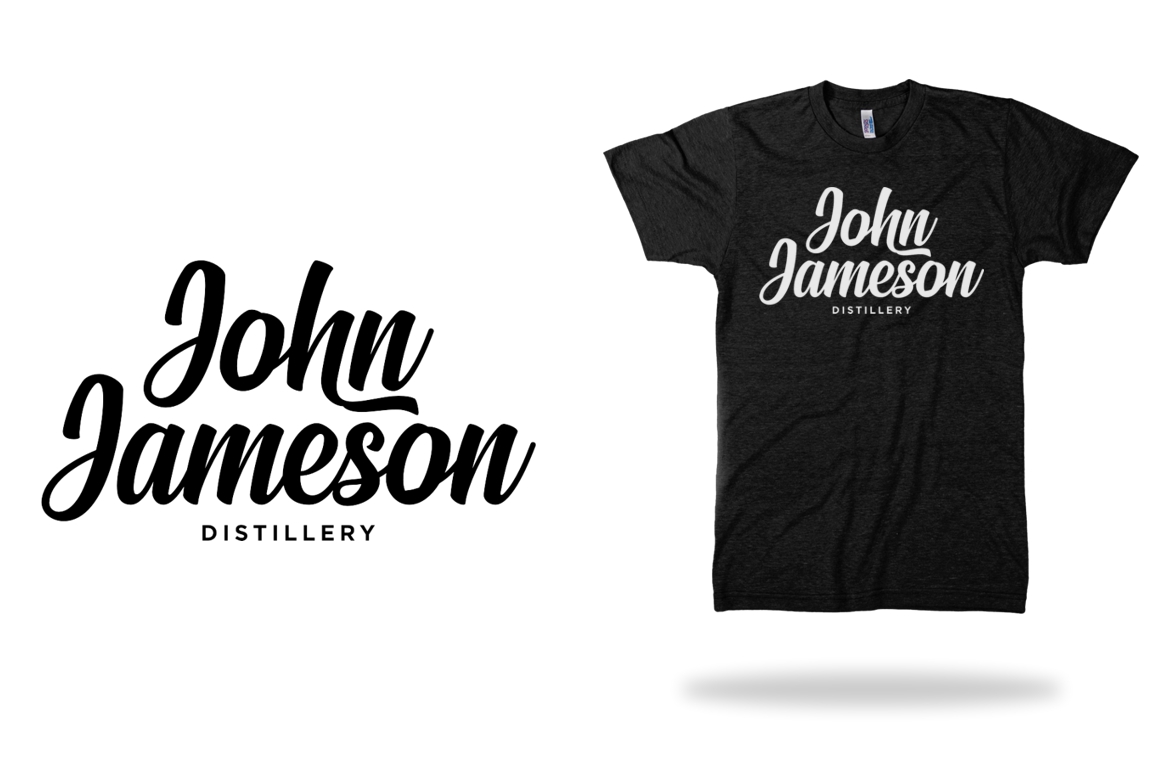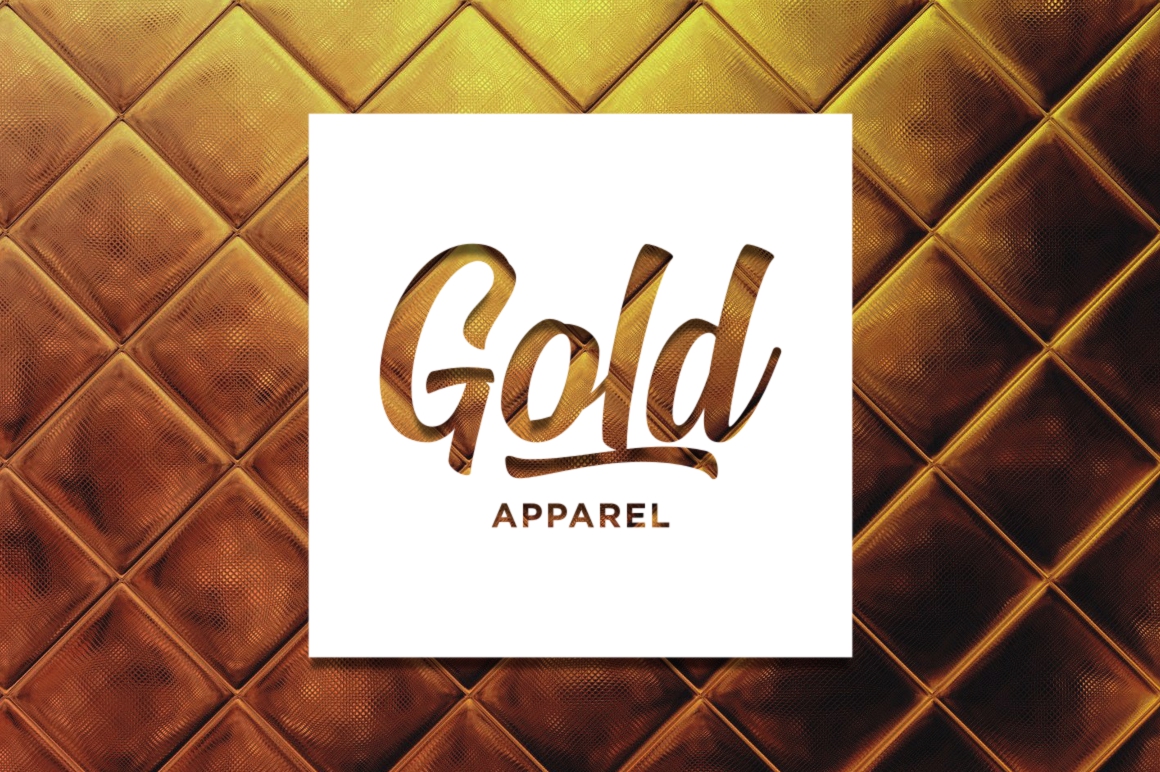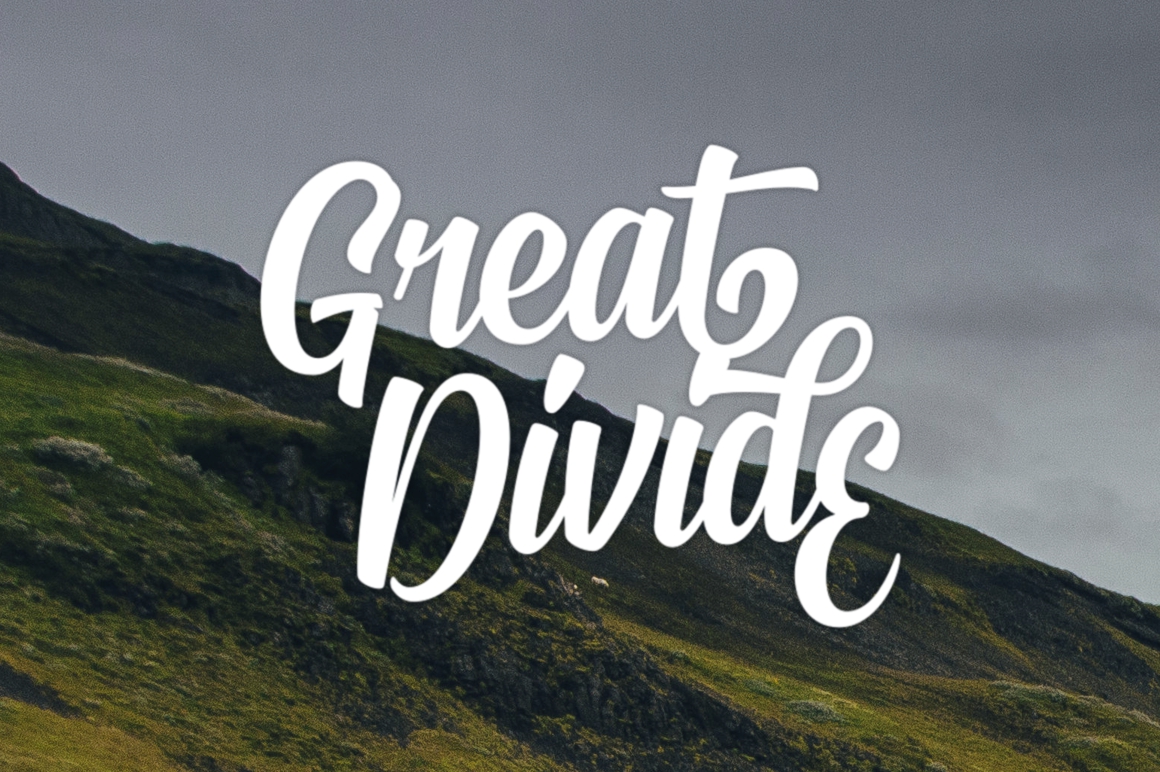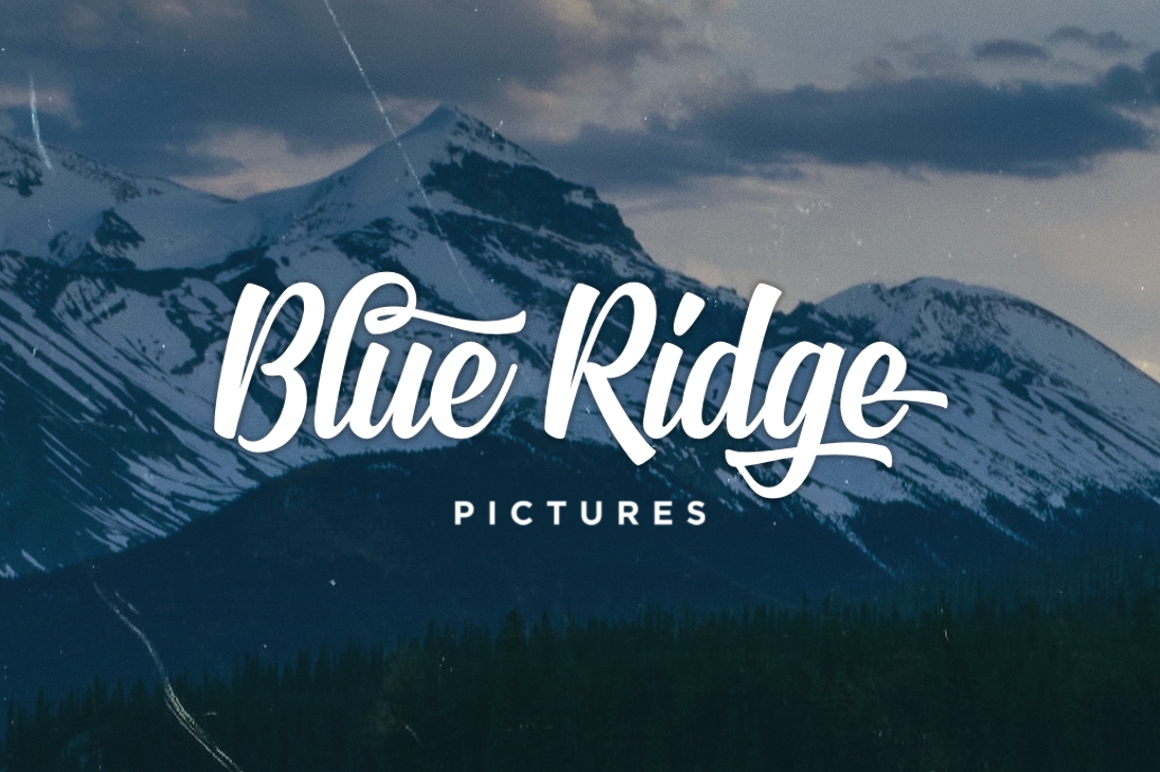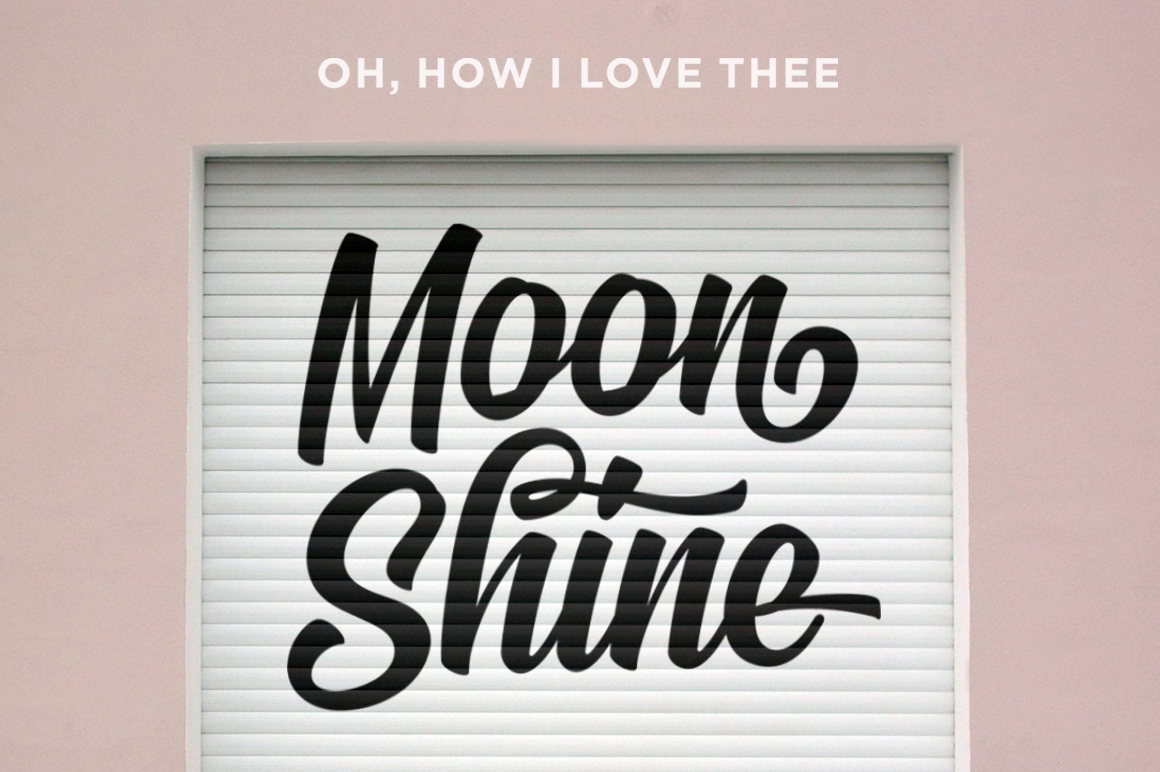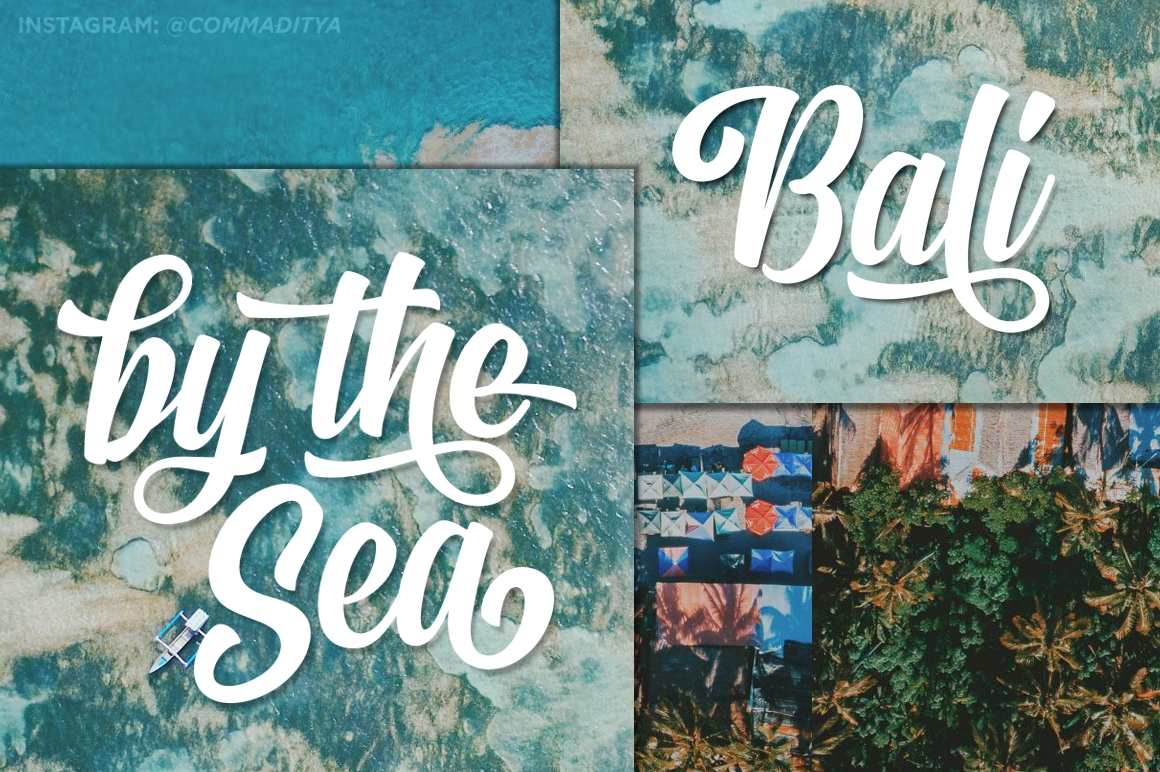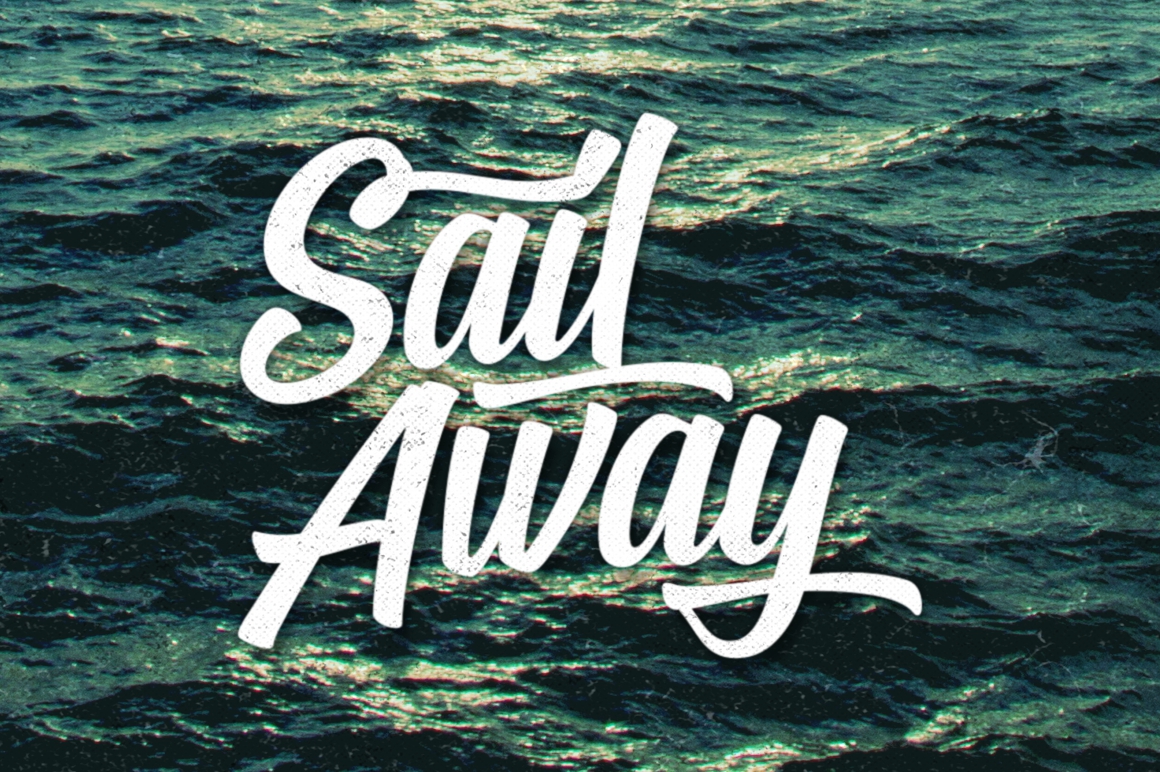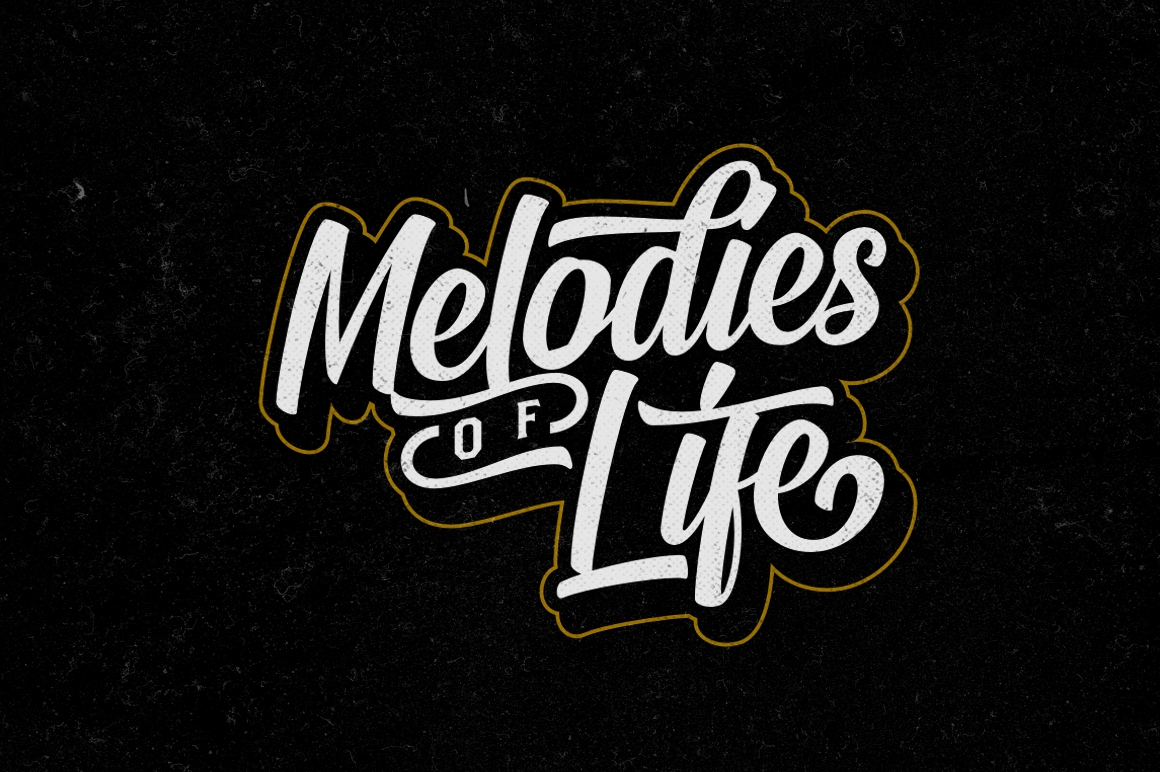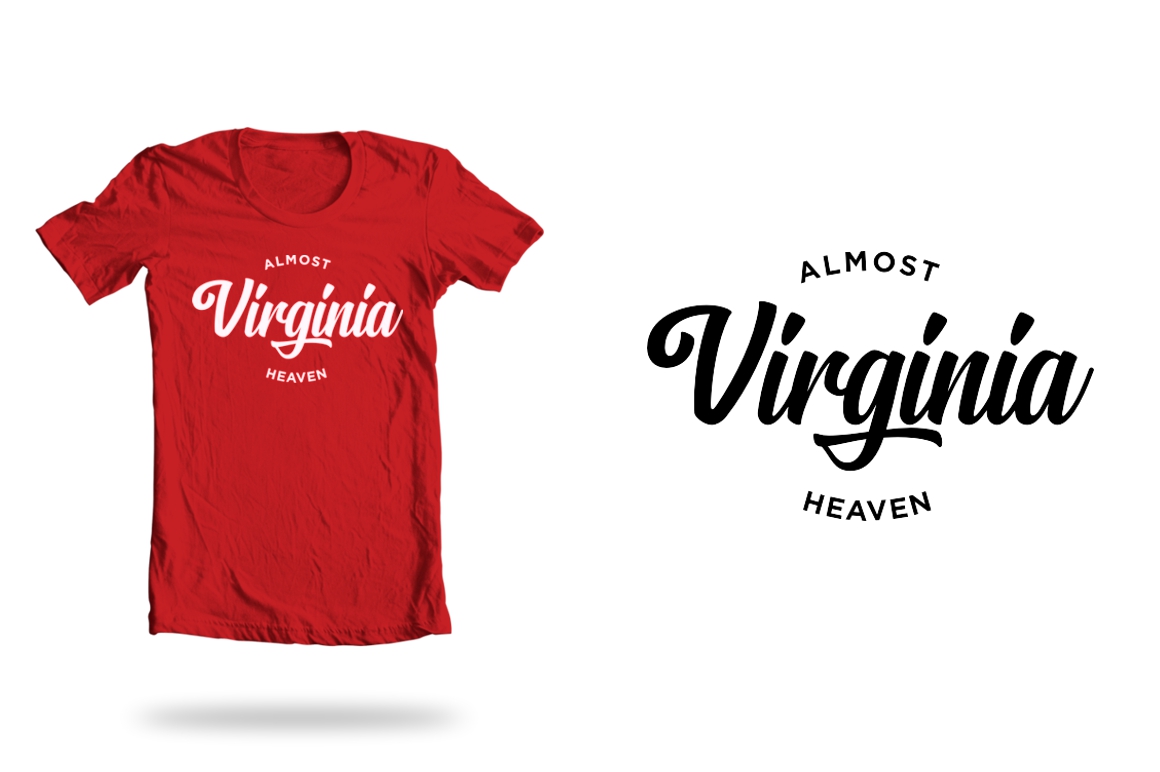
Signatra Script Font
About Signatra Script Font
A clean and playful yet trendy typeface, Signatra is crafted with high attention to all the little details. Signatra offers a natural hand-lettering/sign-painting experience via its bold style and exceptional presence.